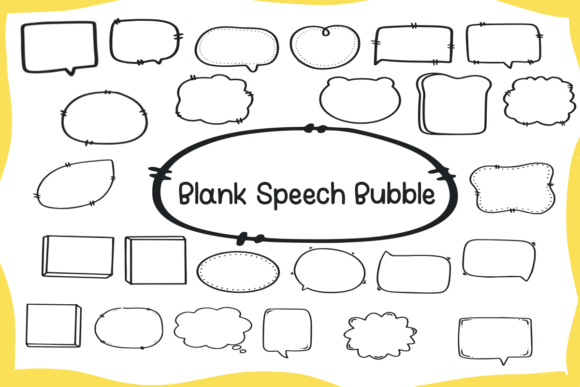
Looking for the best font to elevate your speech notes? Look no further than Blank Speech Bubble Font, created by Foam-Design Store. This adorable hand-drawn dingbats font is not only cute but also incredibly useful for various purposes.
Whether you're a planner enthusiast, a digital designer, or someone who loves crafting, Blank Speech Bubble Font is a must-have in your collection. Its versatility allows it to be used in presentations, worksheets, greeting cards, comics, posters, and so much more.
What sets Blank Speech Bubble Font apart is its charming and whimsical design. Each letter is meticulously hand-drawn, giving your projects a unique and personal touch. With this font, your designs will stand out from the crowd and capture the attention of your audience.
Imagine using Blank Speech Bubble Font to create captivating posters that effortlessly convey your message. Picture yourself crafting beautiful greeting cards that evoke emotions and leave a lasting impression. With this font, your creative ideas will come to life in ways you never thought possible.
But it doesn't stop there. Blank Speech Bubble Font is also perfect for digital designs and presentations. Add a touch of playfulness to your slides and make your audience truly engage with your content. This font will ensure that your message is not only heard but also seen and remembered.
Experience the magic of Blank Speech Bubble Font and make your mark in the world of design. Get ready to captivate your audience, evoke emotions, and create unforgettable experiences. Don't wait any longer - start creating with Blank Speech Bubble Font now!